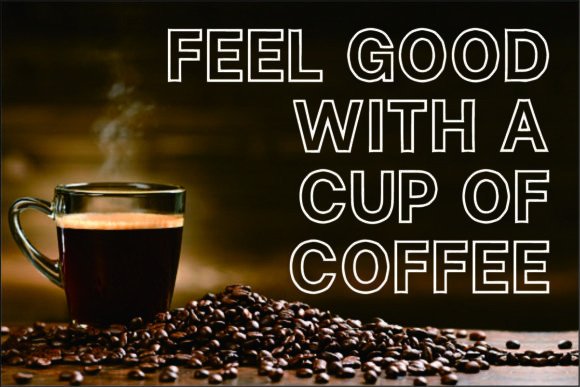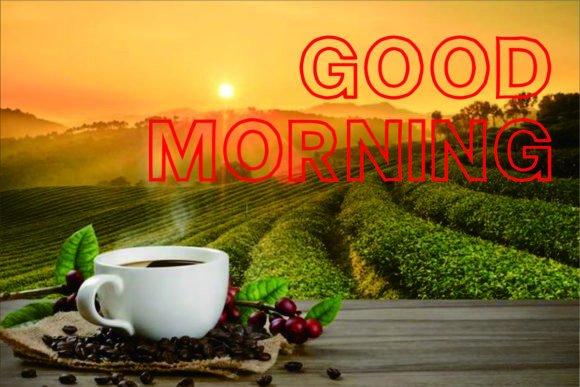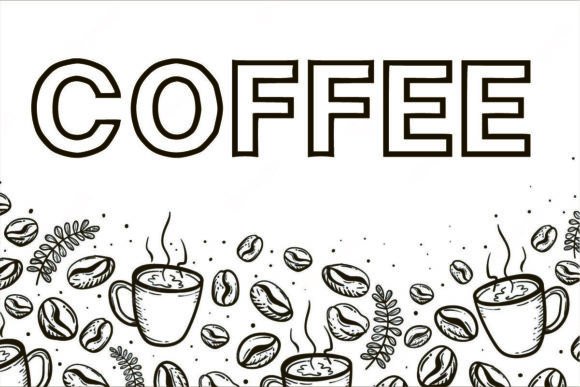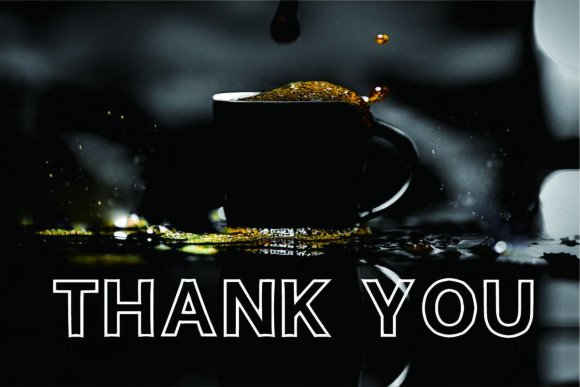
Introducing Espresso Font: The Perfect Blend for Your Coffee Branding
Are you a designer or crafter looking for a unique and stylish font to elevate your coffee branding projects? Look no further than Espresso Font! This display font is specifically designed to add a touch of sophistication and elegance to any coffee-related design, from logos and t-shirt printing to product designs and more.
A Font that’s Rich in Style
Espresso Font is a one-of-a-kind typeface that exudes a sense of luxury and refinement. Its sleek lines, precise curves, and carefully crafted details make it the perfect choice for designers who want to create high-end coffee branding materials that stand out from the crowd. Whether you’re designing a logo for a coffee shop, a label for a coffee product, or a social media graphic for a coffee brand, Espresso Font is sure to impress.
Versatility at its Best
One of the best things about Espresso Font is its versatility. This font is not limited to just coffee branding; it can be used in a variety of contexts, from packaging design to advertising, and even personal projects. Its unique style and flair make it an excellent choice for designers who want to add a touch of personality to their work.
Espresso Font is ideal for a range of design applications, including:
- Logos: Create a lasting impression with a custom logo that showcases your coffee brand’s personality and style.
- T-shirt printing: Add a touch of sophistication to your t-shirt designs with Espresso Font.
- Product designs: Elevate your product designs, from coffee mugs to coffee makers, with this stylish font.
- Social media graphics: Create engaging social media graphics that showcase your coffee brand’s unique personality.
Why Choose Espresso Font?
So, why choose Espresso Font over other fonts? Here are just a few reasons:
- Unique style: Espresso Font has a one-of-a-kind style that will set your designs apart from the competition.
- Elegant and sophisticated: This font exudes elegance and sophistication, making it perfect for high-end coffee branding projects.
- Easy to read: Despite its unique style, Espresso Font is easy to read, making it perfect for body text and headlines.
- High-quality: This font is designed with high-quality in mind, ensuring that it will look great in any context.
Tips for Using Espresso Font
Here are a few tips for getting the most out of Espresso Font:
- Use it sparingly: Because of its unique style, it’s best to use Espresso Font sparingly to avoid overwhelming the design.
- Pair it with a neutral font: Pair Espresso Font with a neutral font to create a beautiful contrast and add visual interest to your design.
- Experiment with colors: Don’t be afraid to experiment with different colors to find the perfect combination that showcases your coffee brand’s personality.
In conclusion, Espresso Font is a unique and stylish display font that’s perfect for coffee branding projects. Its elegant and sophisticated style, versatility, and high-quality design make it an excellent choice for designers and crafters who want to elevate their designs. Whether you’re creating a logo, t-shirt design, product design, or social media graphic, Espresso Font is sure to impress. So why wait? Download Espresso Font today and start creating stunning coffee branding materials that will leave a lasting impression!